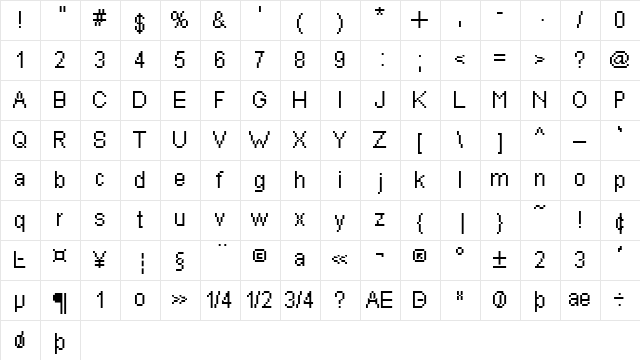
C&C Red Alert [LAN] Regular
Design Context for C&C Red Alert [LAN] Typeface
C&C Red Alert [LAN] takes a measured approach to typography — its balanced proportions and neutral character make it a reliable workhorse for both digital and print work.